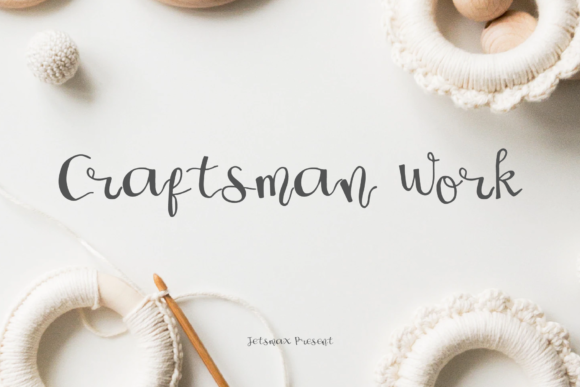
Introduction to Craftsman Work Font
Craftsman Work is a whimsical script font with a relaxed theme, featuring a lovely style.
No matter the topic, this font will be an incredibly asset to your fonts’ library, as it has the potential to elevate any creation .